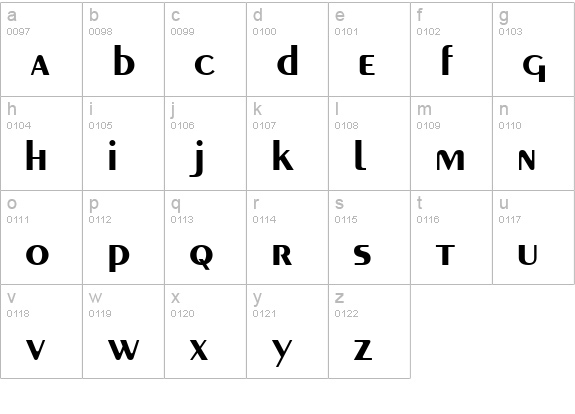
Paquete SSi Bold Font Details
Paquete SSi Bold is a strong, high-contrast variant in the Paquete typeface family \xE2\x80\x94 well suited to headlines, attention-grabbing titles, and strong calls-to-action.
Introducing Paquete SSi Bold, a striking and versatile font that is sure to make a bold statement in any design project. This typeface boasts a unique blend of sleek lines, sharp angles, and contemporary curves, resulting in a visually impactful and modern aesthetic. Paquete SSi Bold is the perfect choice for headlines, titles, logos, and any other design element that requires a touch of sophistication and strength. Its bold and powerful characters demand attention, while maintaining a balanced and harmonious appearance. Whether used in print or digital media, this font will effortlessly elevate your designs and captivate your audience. One of the best features of Paquete SSi Bold is that it is freely available to download at FontsMarket.com. This means that you can easily access and use this incredible font without any restrictions or fees. Its availability for free makes it an excellent choice for both personal and commercial projects, allowing designers and creatives of all kinds to unleash their creativity without breaking the bank. With Paquete SSi Bold, you can add an air of professionalism and sophistication to your designs, without compromising on style or flexibility. Its wide range of characters and extensive language support ensure that it is suitable for a variety of design projects, making it a valuable addition to any font library. Don't miss out on the opportunity to enhance your designs with Paquete SSi Bold. Download this font for free at FontsMarket.com and let your creativity soar to new heights.